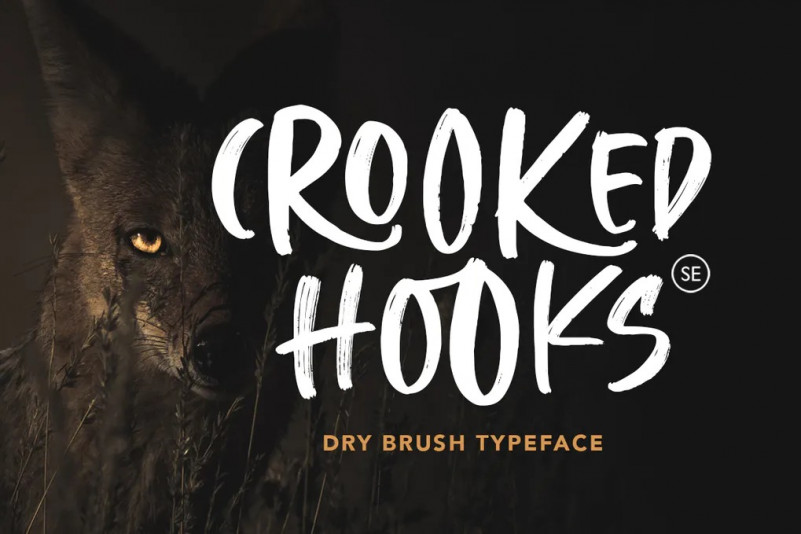
Crooked Crooks Font
Crooked Hooks is all caps font with street style brush. It’s contain uppercase and lowercase in different style, number, symbol, and also with multilingual support! There is a lot of stylistic ligatures in this font. This font also contain opentype feature for adding line under a word, You can access it from ligature, simply type underscore + number (1-3) in the middle of the text. For example: Mar_3ker. You can use this font for any project such as a branding, poster, or quotes!